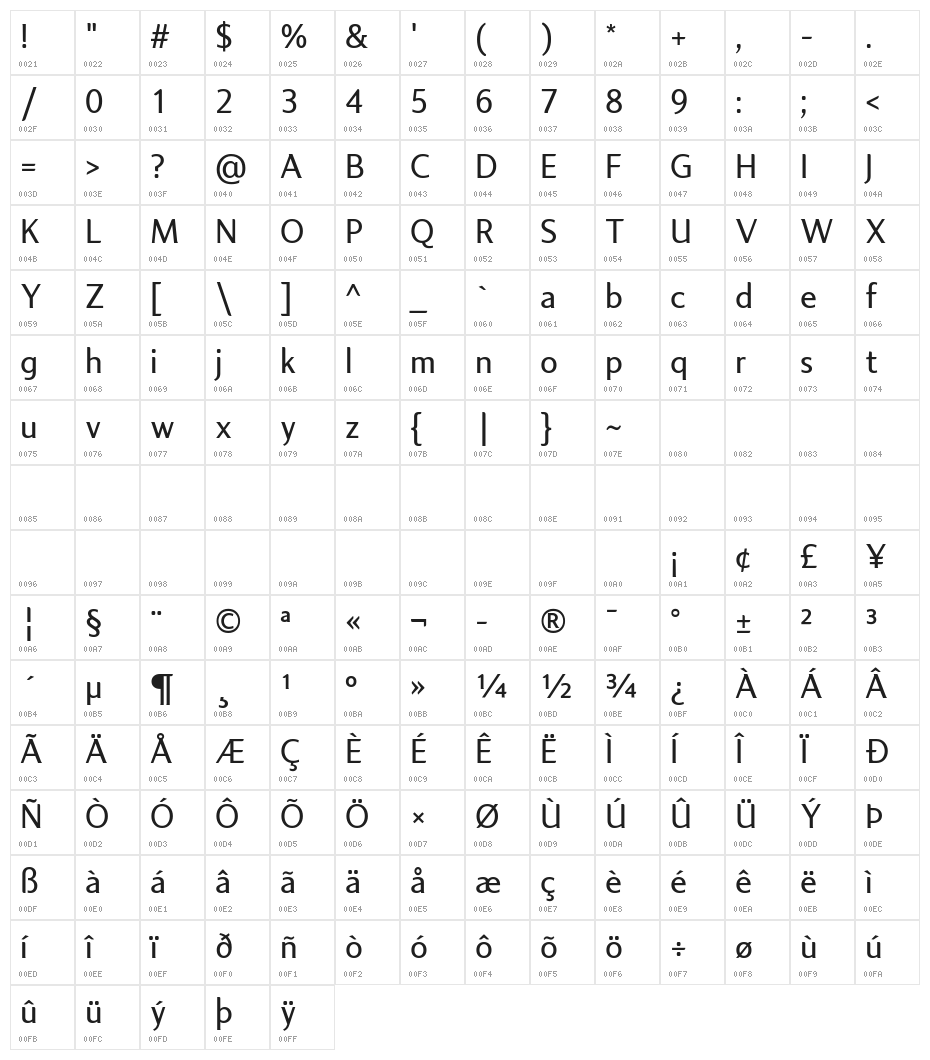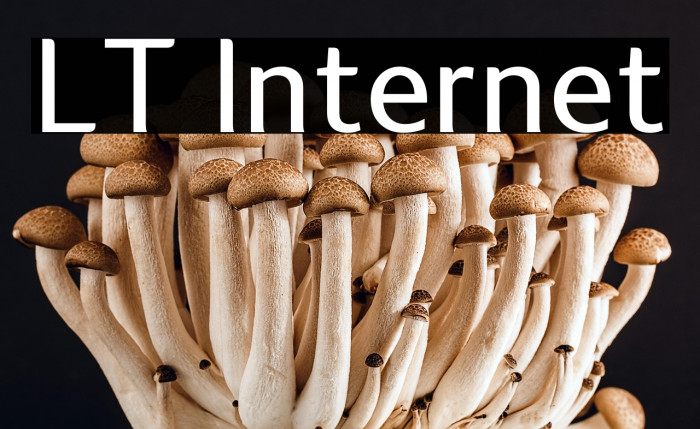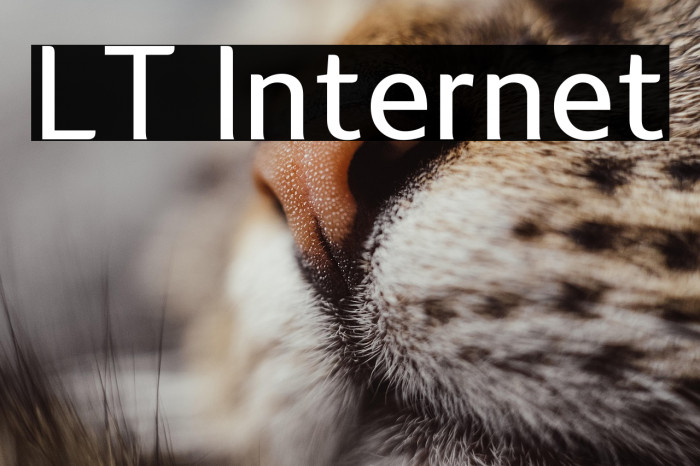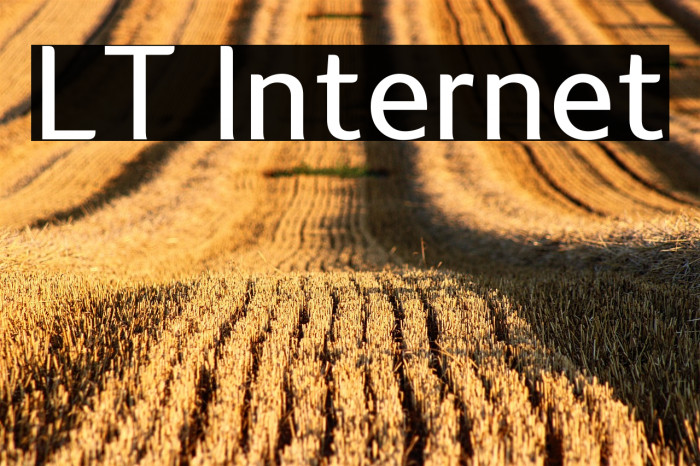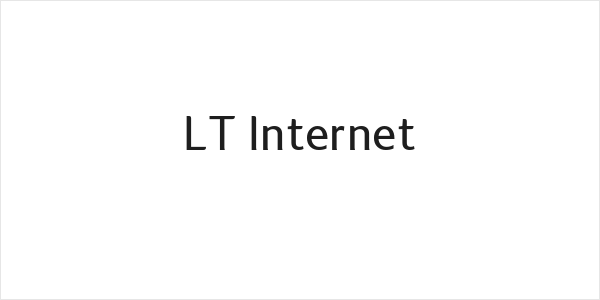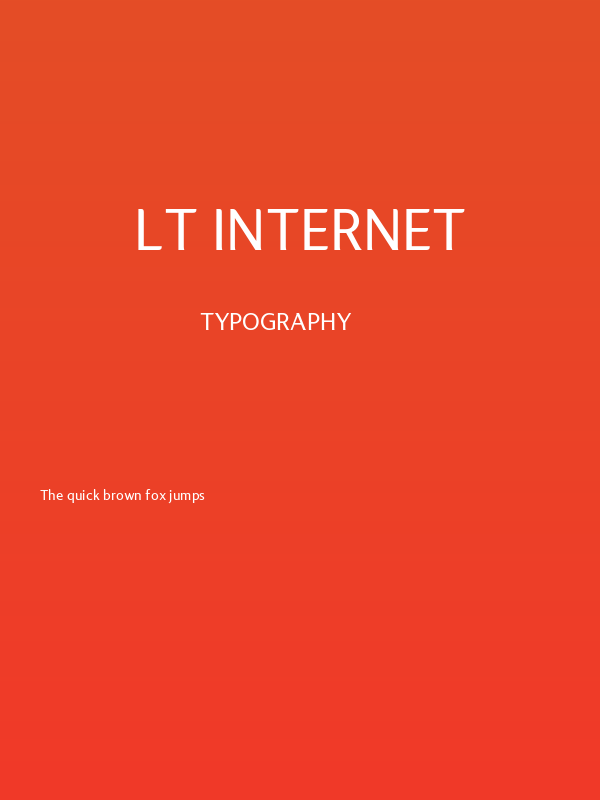
LT Internet Font
LT Internet Description
This font features a clean and modern sans-serif design, characterized by its simplicity and readability. The letters are evenly spaced with a consistent stroke width, providing a balanced and harmonious appearance. The uppercase and lowercase characters are well-proportioned, making it suitable for both display and body text. The numerals are clear and distinct, ensuring legibility in various contexts. Special characters are designed with the same attention to detail, maintaining the overall aesthetic of the font.